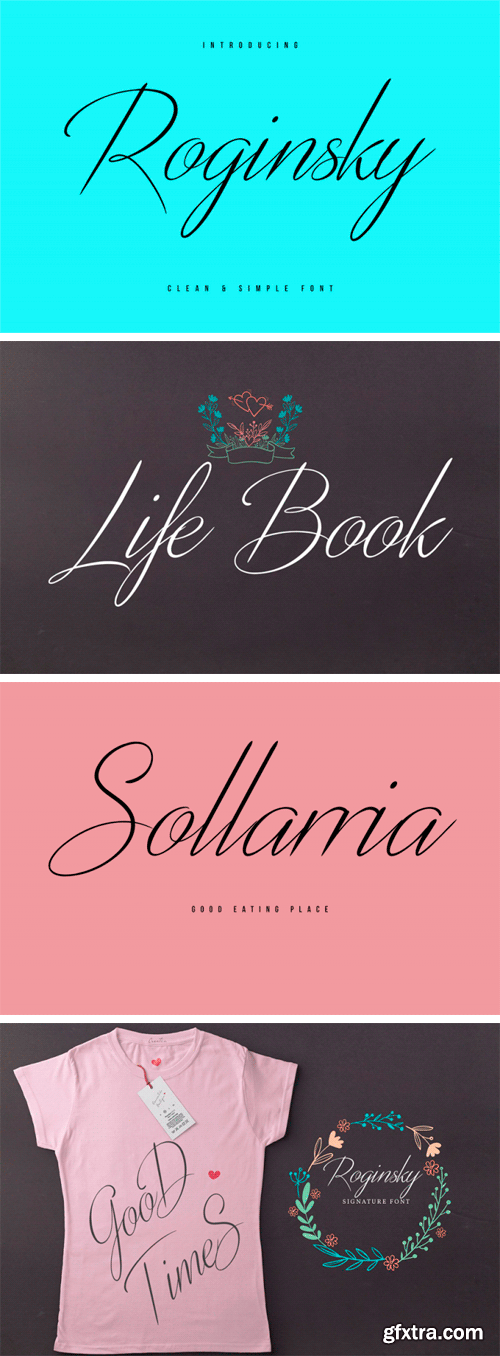
Roginsky is a chic handwritten – signature font. Give your designs an authentic handcrafted feel. This font is perfect for quotes, headings, blogs, logos, invitations and more!